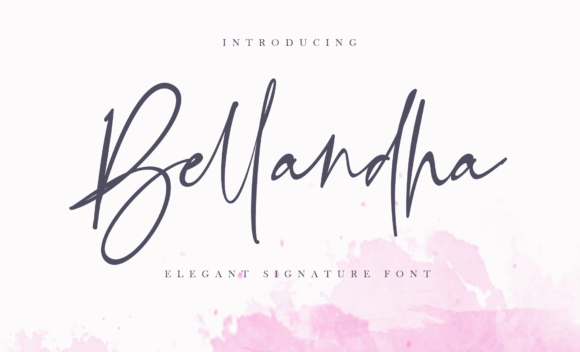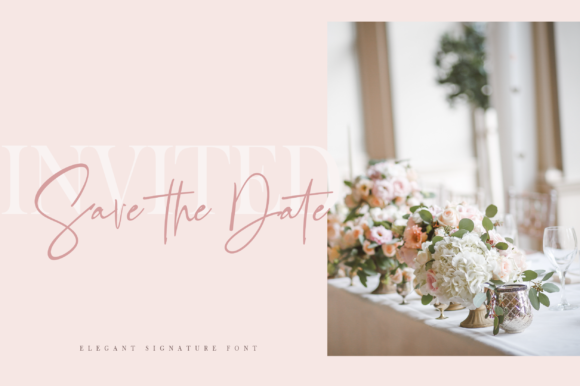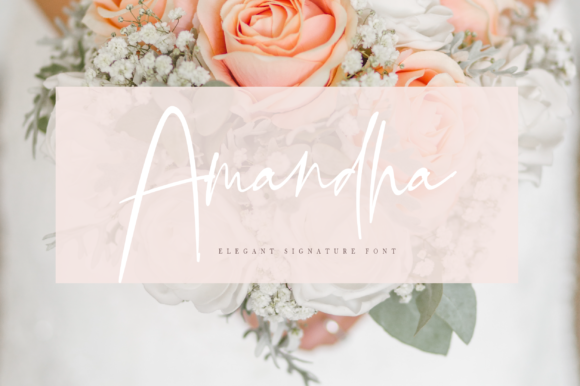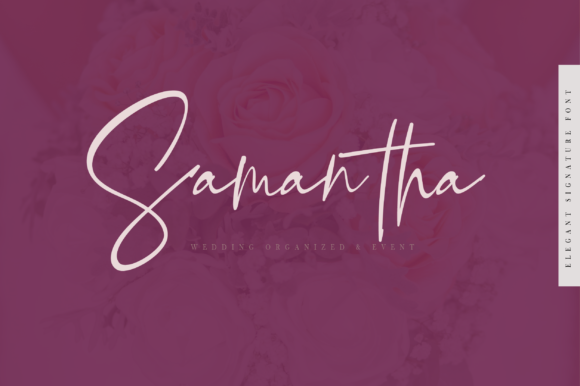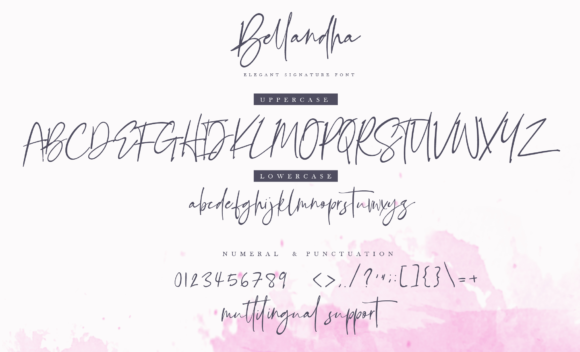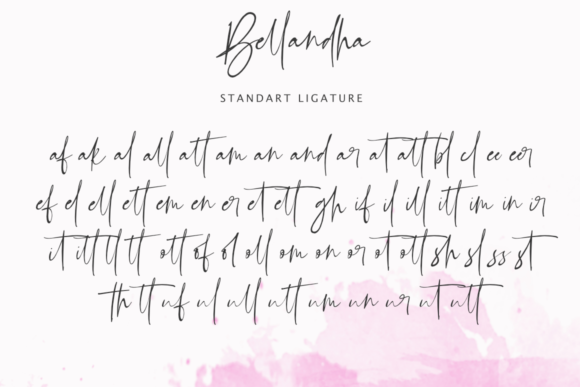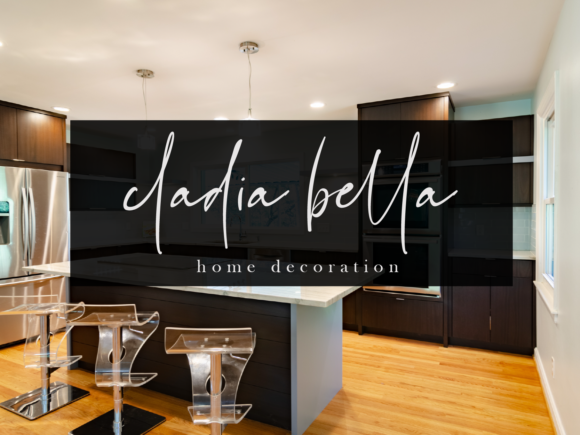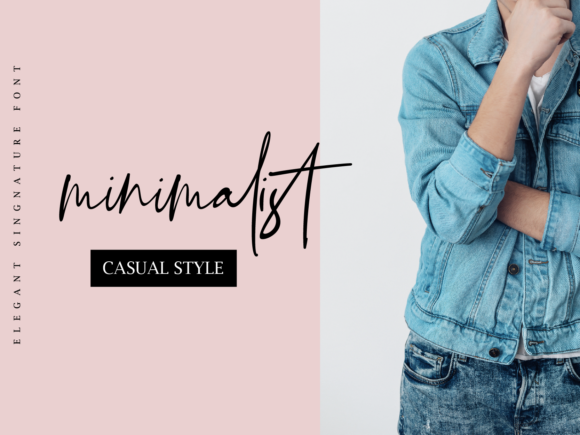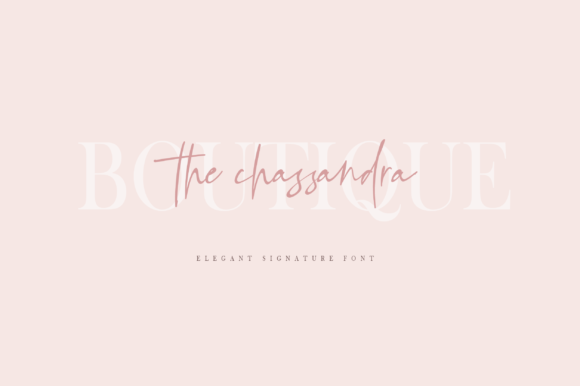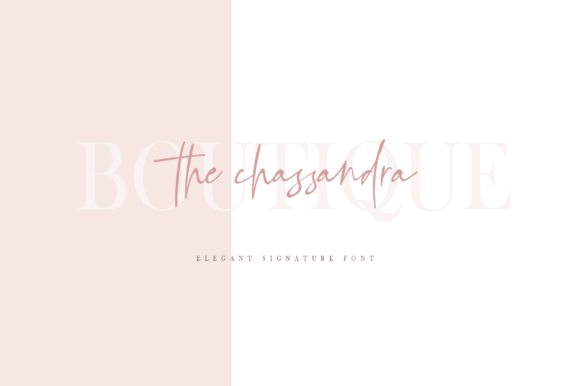
Bellandha Font
About Bellandha Font
The Bellandha is an amazing signature script. It was completely hand drawn and designed to perfectly create natural handwriting, which was achieved by the addition of custom ligatures.
It’s the perfect choice for stylish branding & logo projects, product packaging, handwritten quotes & more.